If you are hunting for the Lazydog font, you have probably run into two completely different typefaces that happen to share a name. One is Lazy Dog, a free handwritten font by British designer Paul Neave that has been circulating since 2006. The other is Lazydog Kids, a paid font by JuliyArt sold together with a set of dog illustrations. They are not the same font, and only one of them is free. Here is how to tell them apart and get the one you actually came for.
Two fonts, one name: which Lazy Dog do you need?
| Designer | Paul Neave | JuliyArt (Juliya Kochkanyan) |
| Category | Script > Handwritten | Handwritten kids font |
Lazy Dog by Paul Neave — the free version
This is the font most people mean when they search for “lazy dog font” or “lazydog font free download”. It is a handwritten script face by Paul Neave, filed on DaFont under Script > Handwritten, and it has been downloaded more than 278,000 times since it first appeared there on 14 October 2006. The file you receive is named lazy_dog.ttf. If your font manager or Word font list shows the name LazydogRegular, this is the font you already have.
Lazydog Kids by JuliyArt — the premium version
The second font is a newer, separate design: a cute kids’ handwriting face built for comics, children’s books, greeting cards, toys, posters, baby clothing and anything that needs a fun, happy look. It is a commercial release, not freeware, and the licence starts at $21 for desktop use on Creative Market. What makes it worth the money for some projects is the artwork bundled with it — 35 illustrated dog elements and 10 stickers in EPS and PNG — plus broader language coverage than the free font, including Cyrillic and Vietnamese characters.
The previews below all show Lazydog Kids by JuliyArt, not the free Paul Neave font.
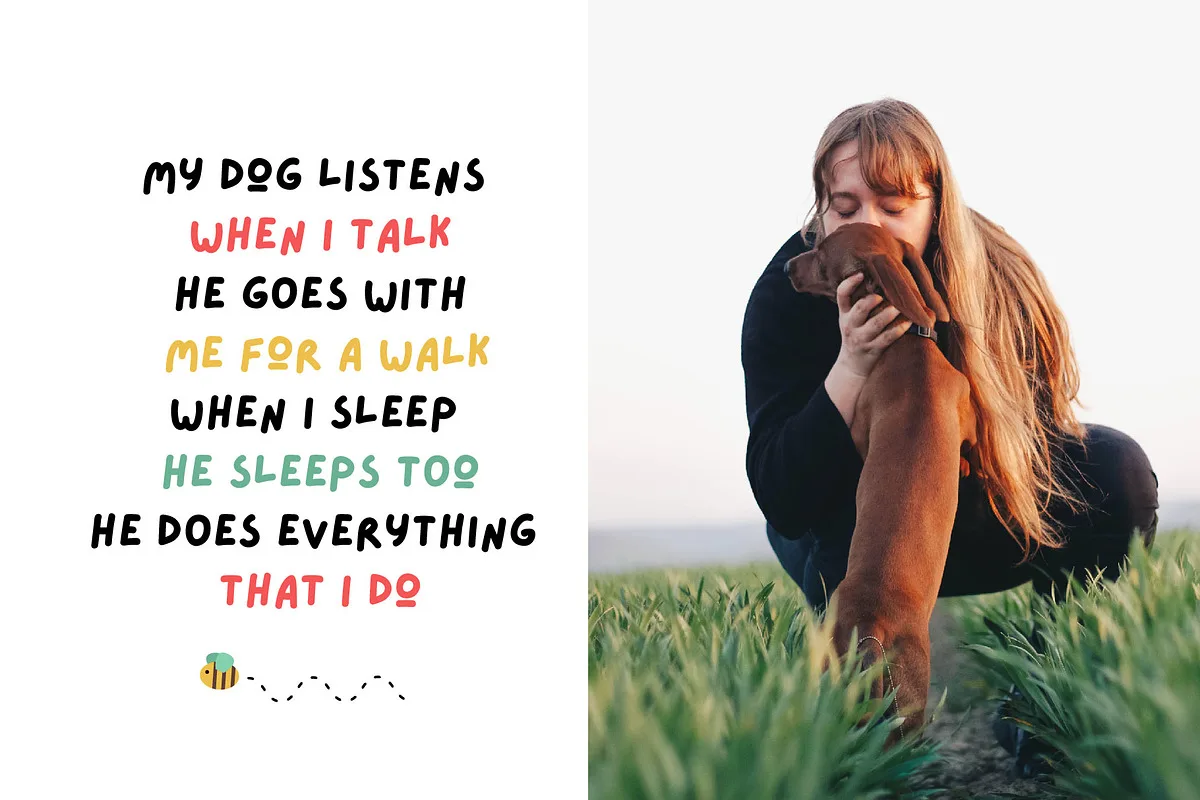
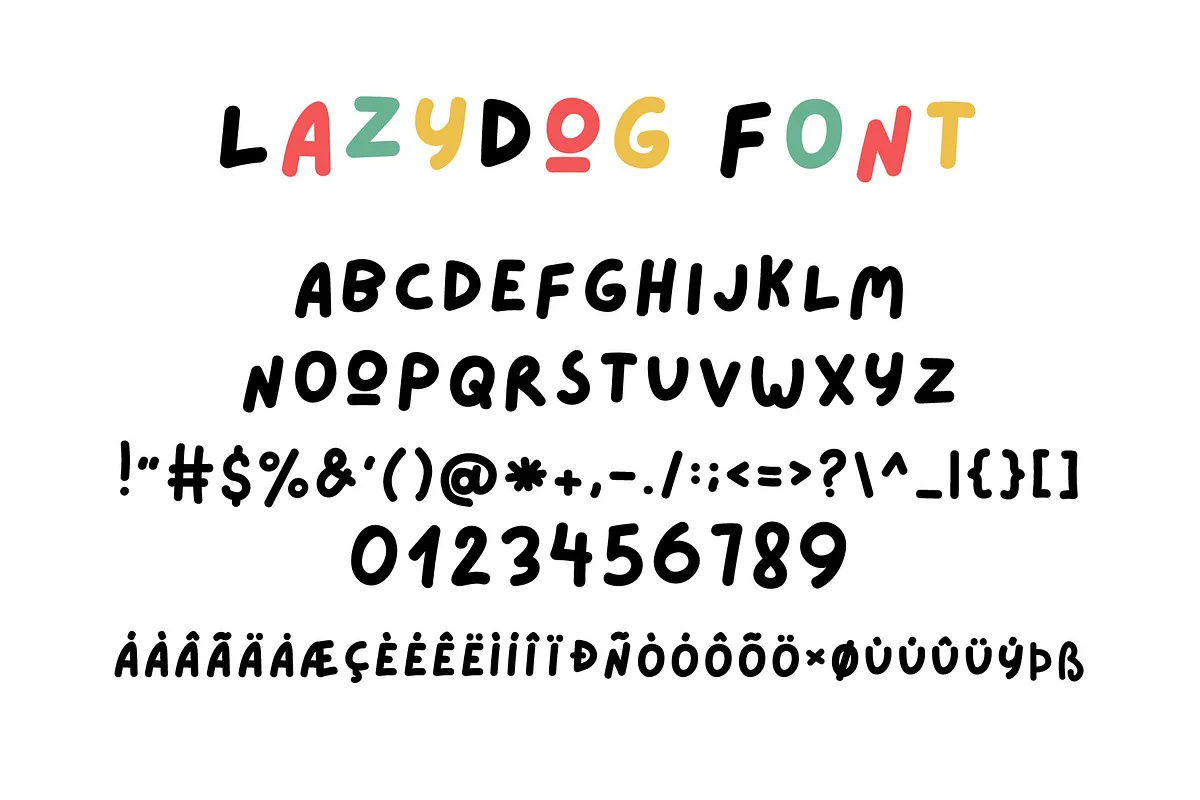
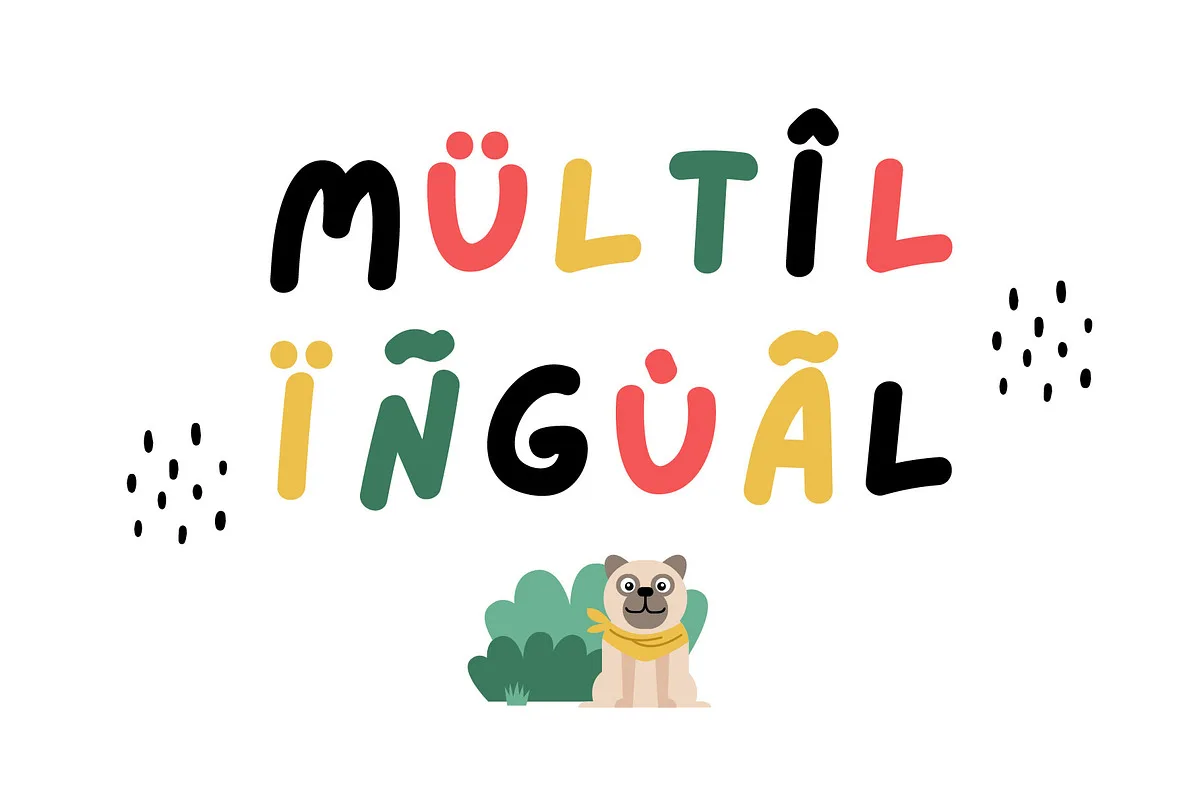
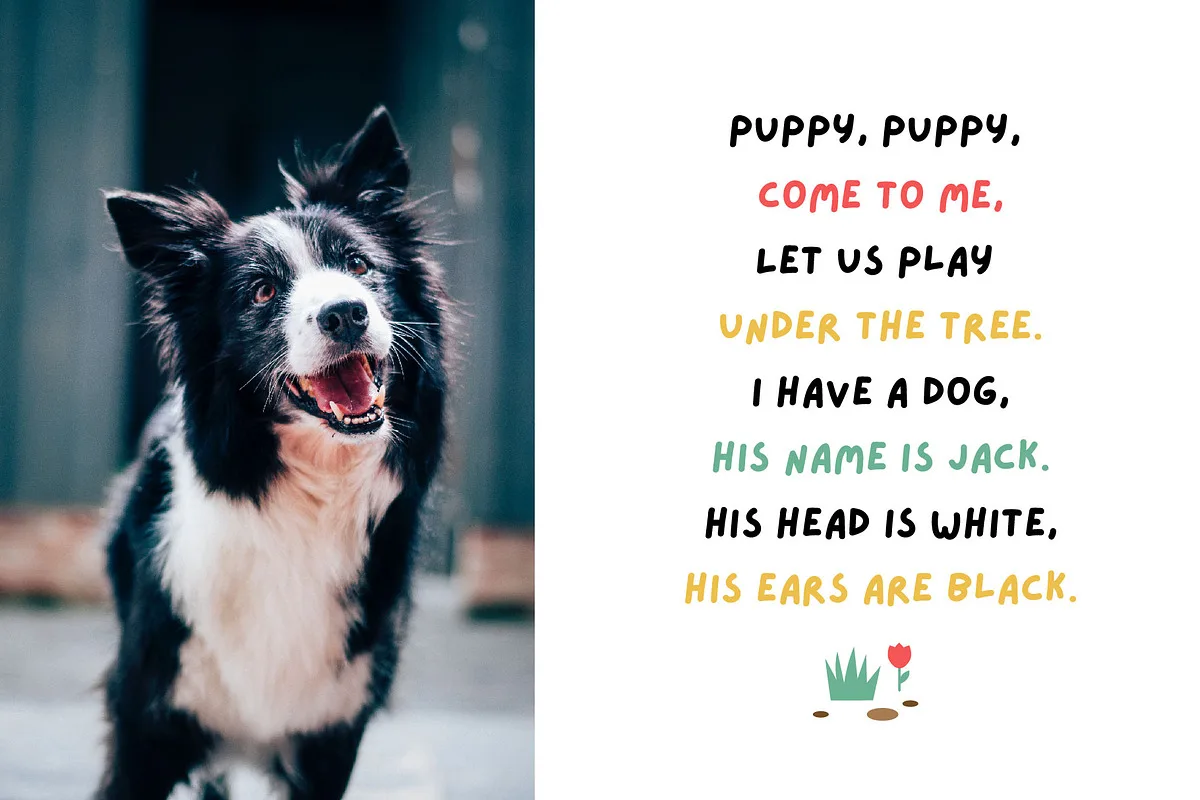
What is the difference between Lazy Dog and Lazydog Kids?
They are two unrelated typefaces by two different designers that happen to share a name. Lazy Dog is a free handwritten script by Paul Neave from 2006, distributed as lazy_dog.ttf. Lazydog Kids is a paid font by JuliyArt that comes with 35 illustrated dog elements and 10 stickers, and supports Cyrillic and Vietnamese in addition to Latin.